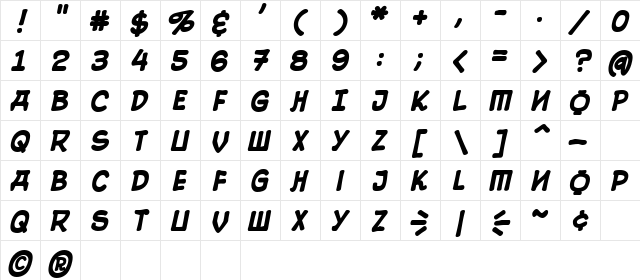
Complete 10 Cent Soviet Bold glyph index. Displaying only characters natively supported by 10 Cent Soviet Bold font.
10 Cent Soviet is a composed and adaptable typeface that performs quietly and consistently across a wide range of design contexts. Its bold stroke weight gives it real presence on the page.